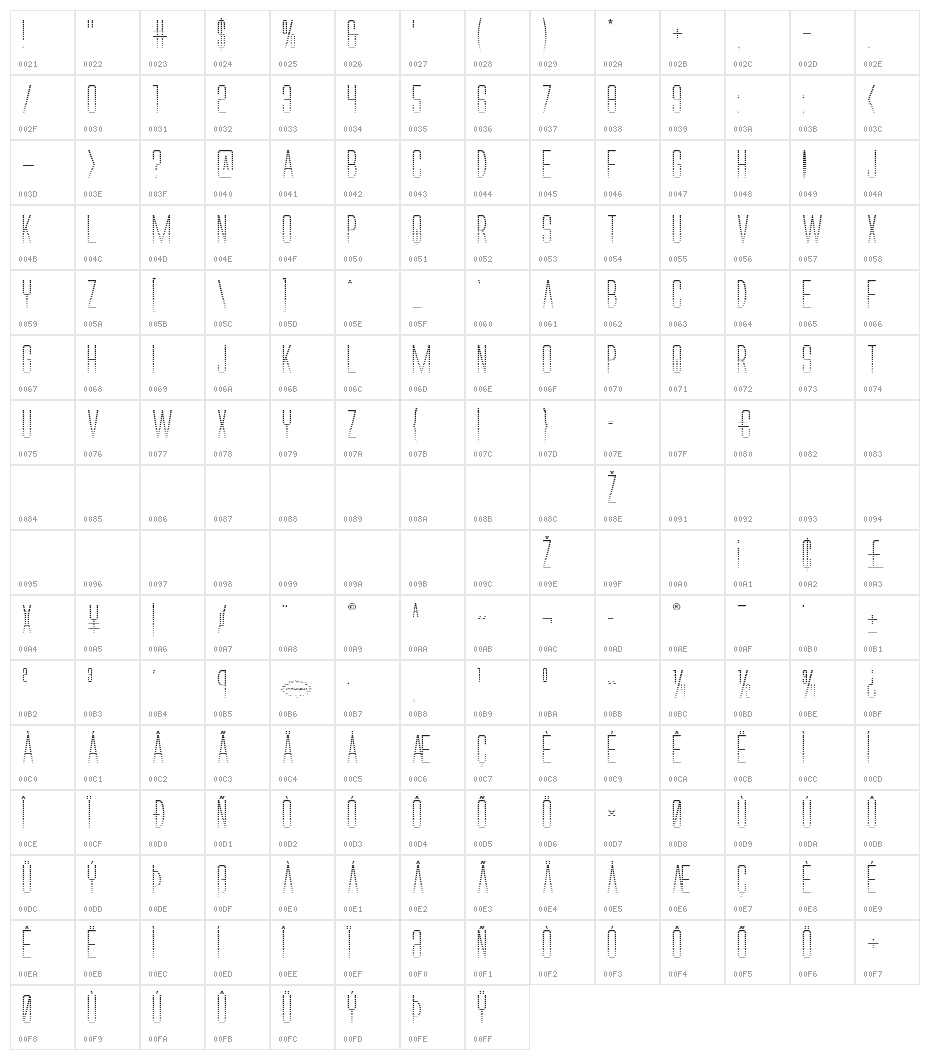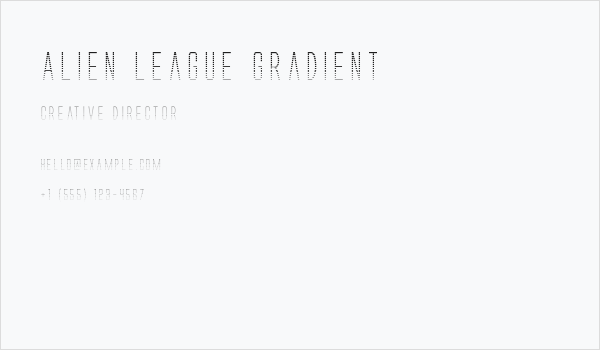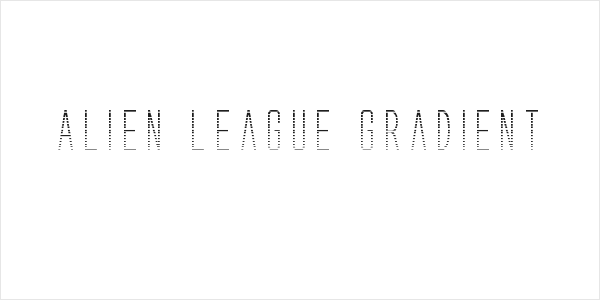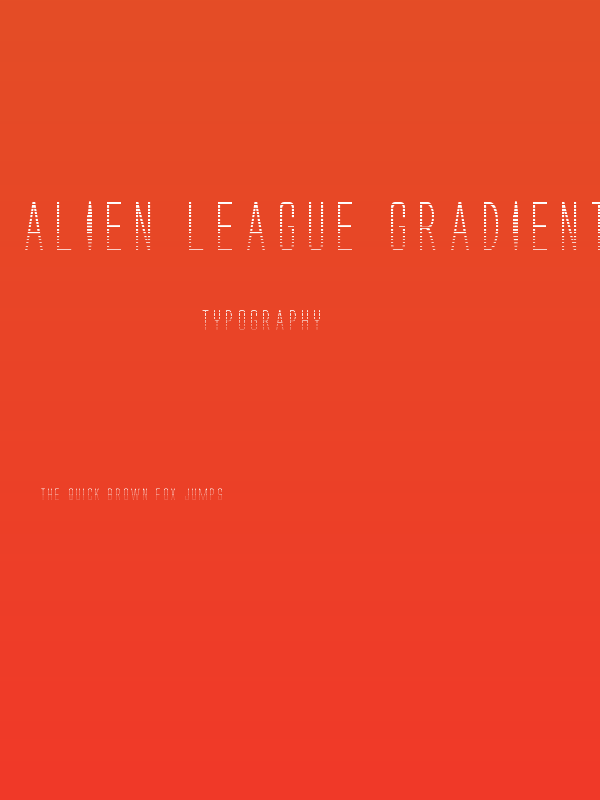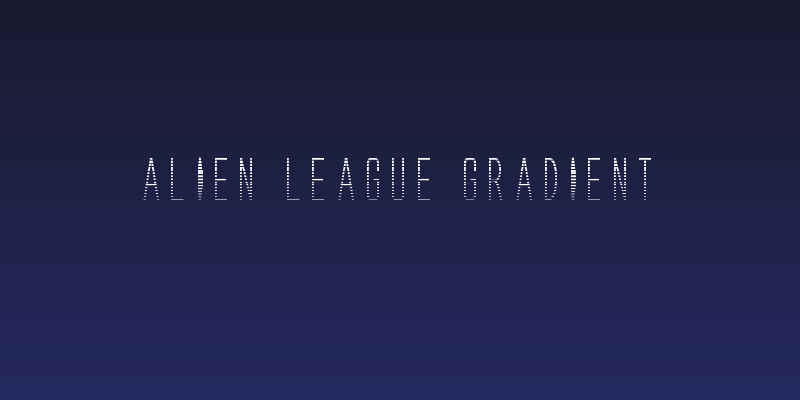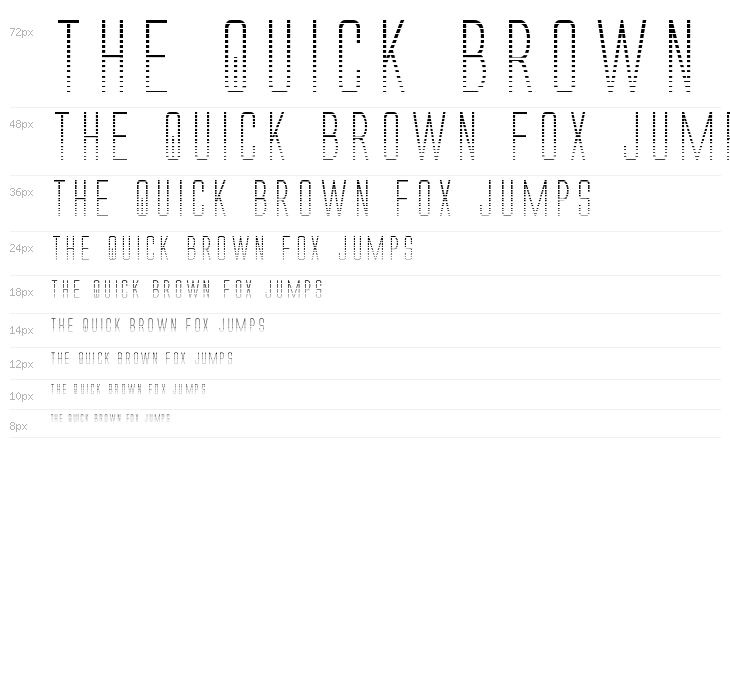
Alien League Gradient Font
Alien League Gradient Description
This font features a futuristic and digital aesthetic, characterized by its unique gradient effect within each character. The letters are tall and narrow, with a distinct dotted pattern that creates a sense of movement and modernity. The uppercase and lowercase letters maintain a consistent style, while the numbers and special characters complement the overall design. The font's geometric structure and clean lines make it suitable for projects that require a contemporary and tech-inspired look.
| Proposed Projects | Perfect for sci-fi themed projects, technology branding, digital interfaces, and modern posters. |